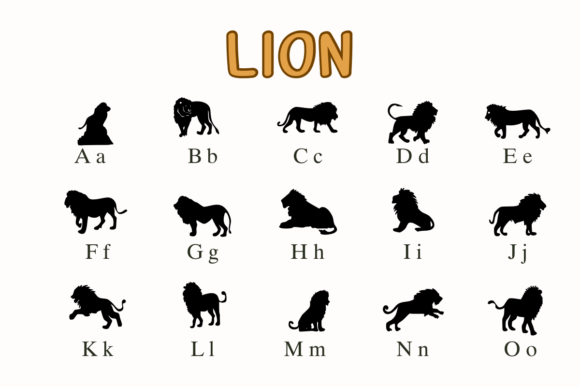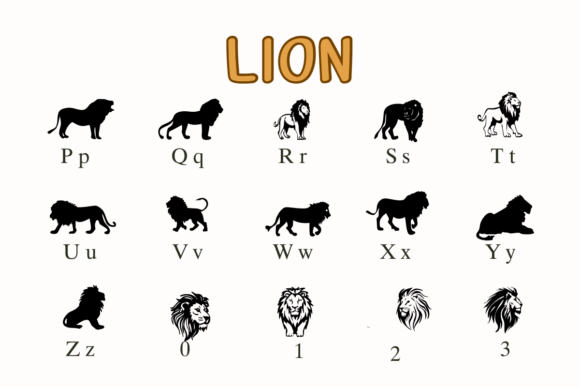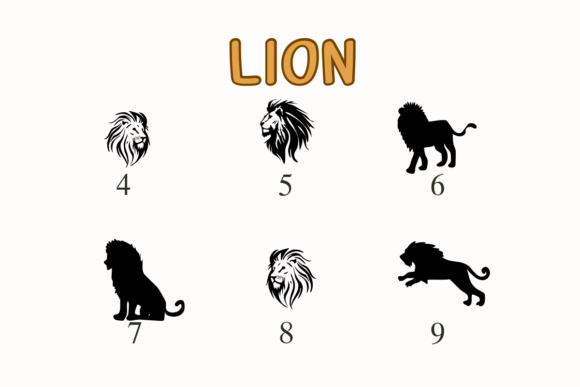
Introduction to Lion Font
Have you ever been rummaging through your craft supplies, searching for the perfect embellishment to elevate your DIY project? The thrill of discovery is real, and it’s a moment that many creatives can relate to. For designers and crafty enthusiasts alike, the right design resource can make all the difference in bringing their ideas to life.
That’s where the Lion Font comes in – a high-quality, free download that’s perfect for adding a touch of whimsy to your creative projects. With its sketched theme style and transparent background, this dingbats font is a versatile design tool that can be used for everything from wedding invitations to logos and decorations.
Lion Font Key Features
- High-quality design resource featuring a majestic lion with a transparent background, perfect for creative projects.
- Unique characteristics: The lion’s fur texture and expression are carefully crafted to provide a realistic and engaging design element.
- Designed to be versatile, Lion Font is suitable for use in logos, branding, advertising, and other creative projects where a bold and eye-catching font is required.
Honest Review: Lion Font
As a designer, I’m always on the lookout for high-quality design resources that can elevate my creative projects. Recently, I stumbled upon the Lion Font, and I must say it’s been a game-changer for my latest design endeavor.
- ✨ The Lion Font offers a clean and modern aesthetic that’s perfect for minimalist designs.
- ✨ The transparent background allows for seamless integration with any design element.
- ✨ The font is highly versatile and can be used for a variety of creative projects, from logos to brochures.
- ⚠️ The Lion Font may not be suitable for projects that require a bold, attention-grabbing font.
- ⚠️ Some users may find the font to be a bit too simple or generic.
Overall, I’m impressed with the Lion Font and would definitely recommend it to fellow designers. Its high quality, free download, and versatility make it an excellent addition to any design resource collection.